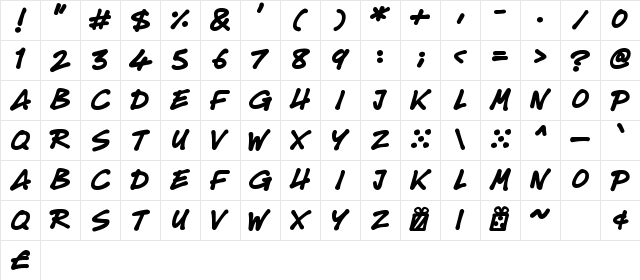
Christmas Cheer Regular Free Font
Christmas Cheer Regular
Design Context for Christmas Cheer
Christmas Cheer is a composed and adaptable typeface that performs quietly and consistently across a wide range of design contexts.
Pro Tip: Use Christmas Cheer in both headline and body roles to test its range before committing to a single application.